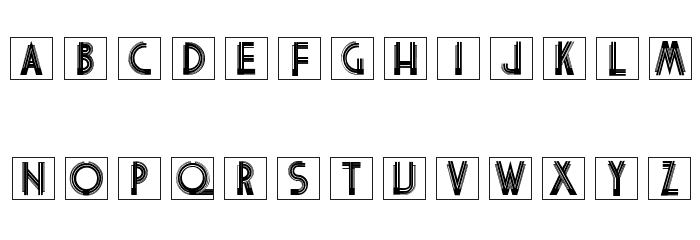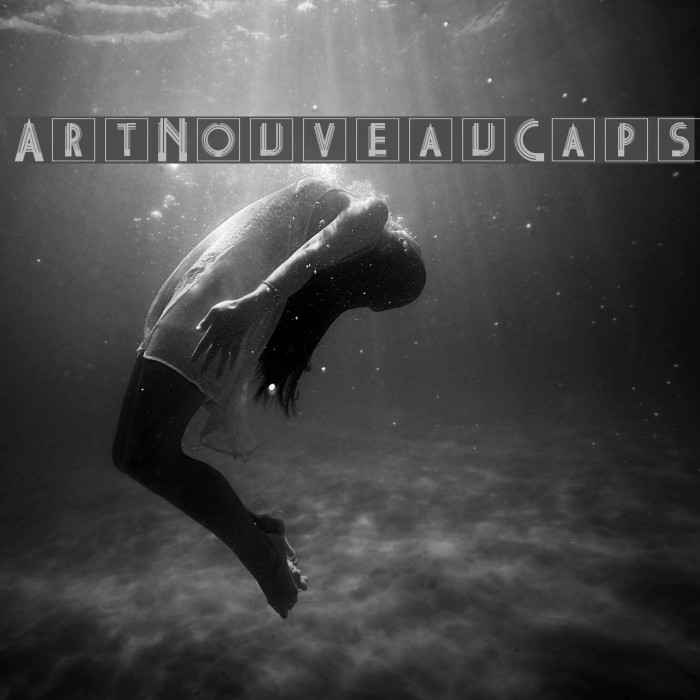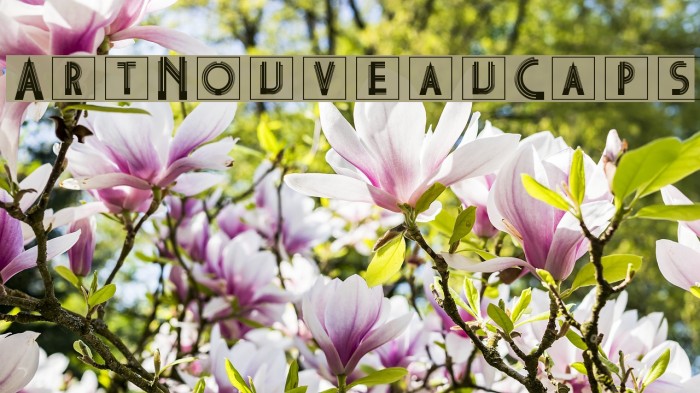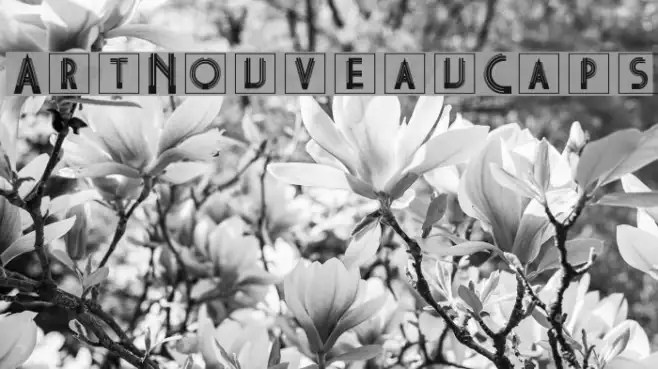
ArtNouveauCaps Font
This font exhibits a distinct Art Nouveau style, characterized by its bold, decorative elements and intricate line work. The uppercase letters feature multiple parallel lines that create a sense of movement and depth, reminiscent of early 20th-century design aesthetics. The geometric shapes and symmetrical patterns add a unique flair, making it stand out as a display font. The lowercase letters maintain the decorative theme with a slightly more restrained approach, ensuring readability while still offering visual interest. The overall design is both elegant and artistic, suitable for projects that require a touch of vintage sophistication.
A bold, decorative Art Nouveau font with intricate line work and geometric patterns.
- Proposed Projects: Ideal for vintage-themed posters, book covers, branding for luxury products, and decorative signage.
- Overall Style: Vintage